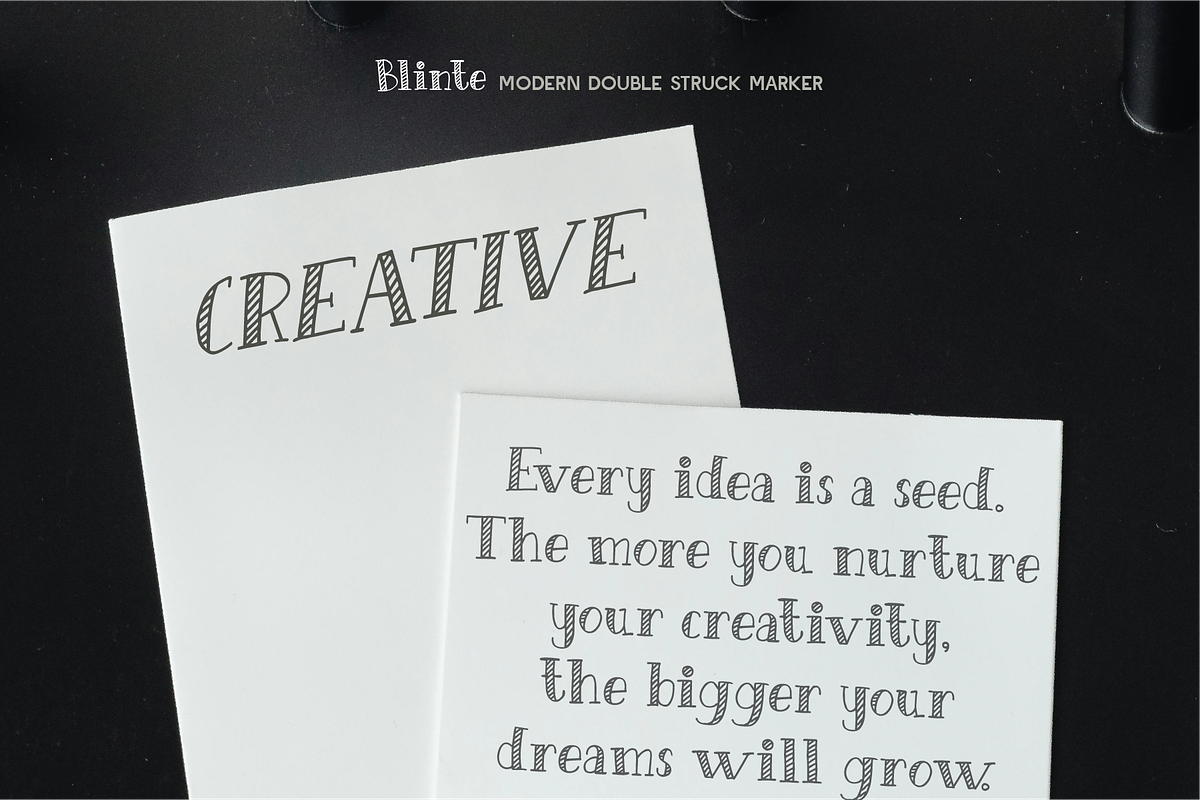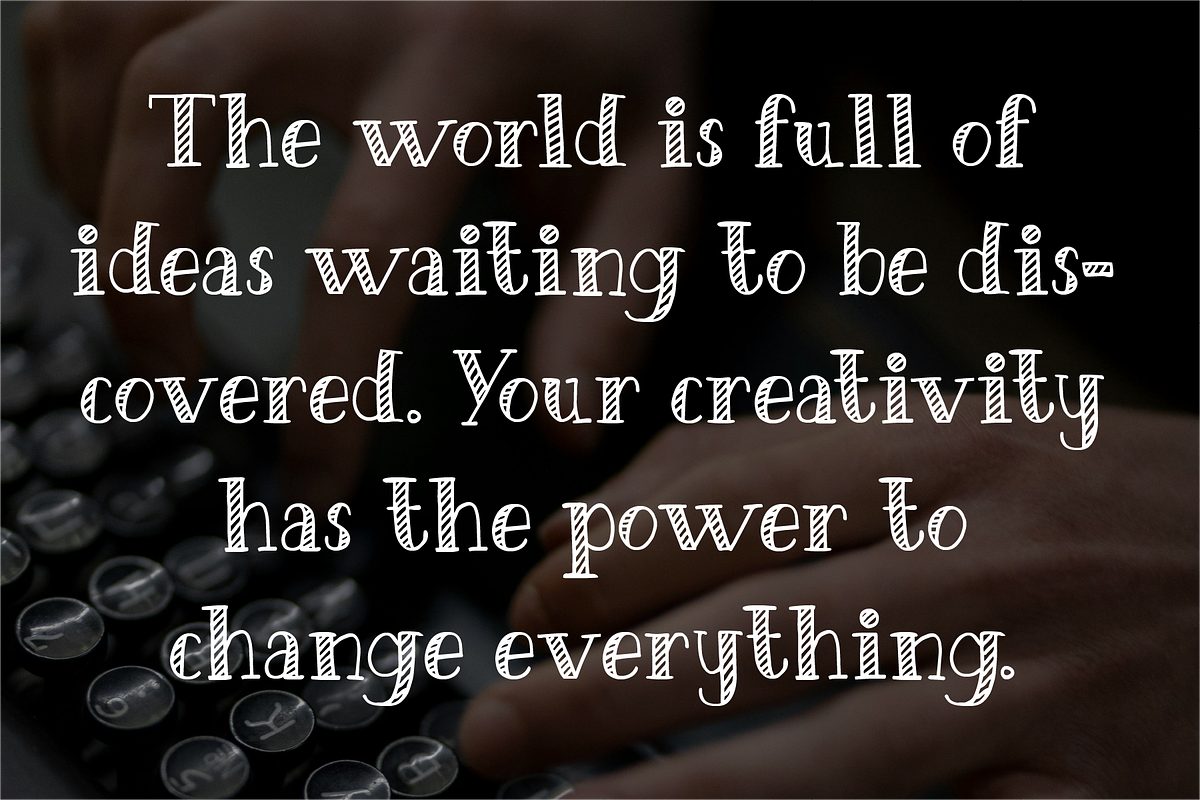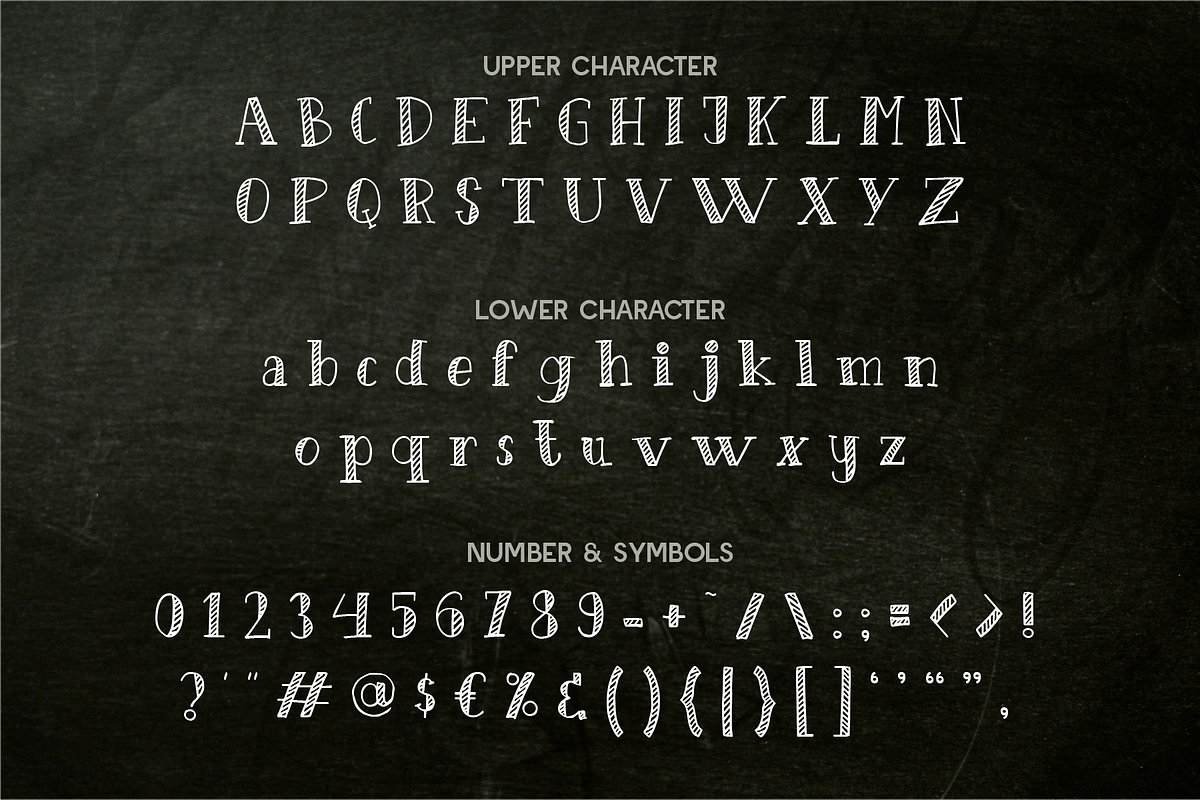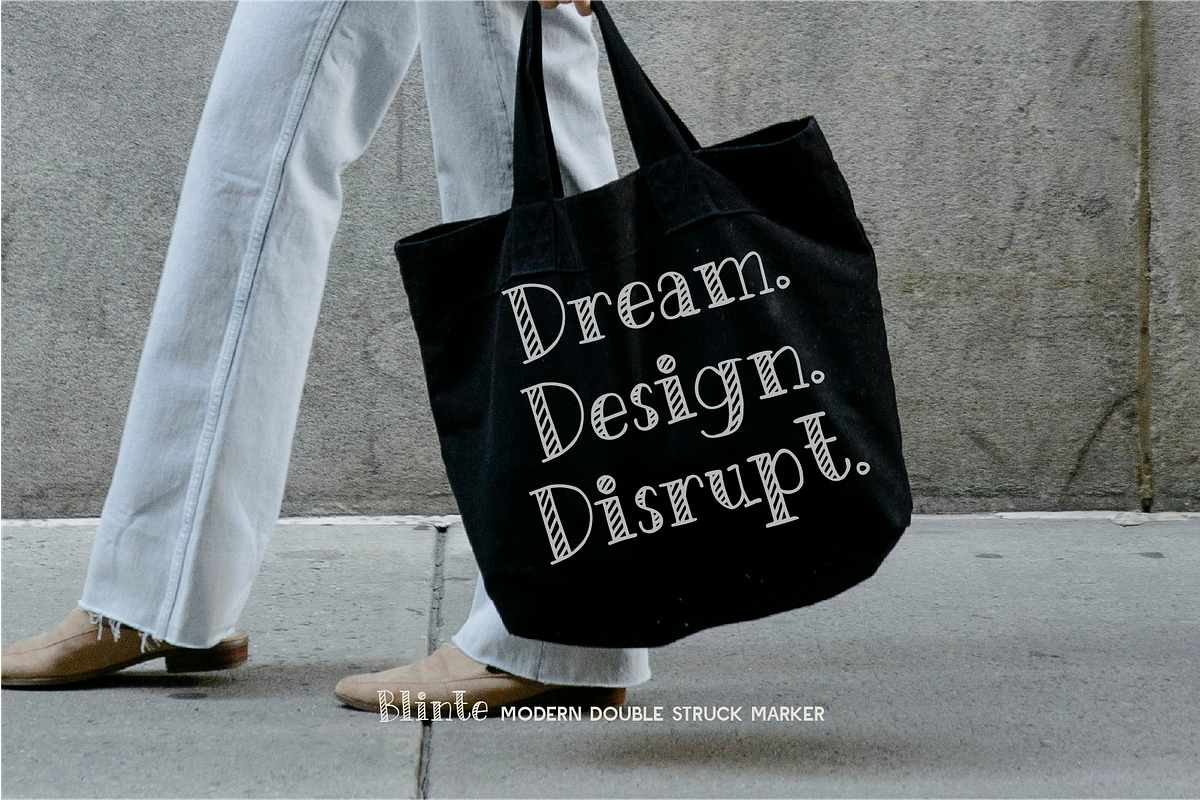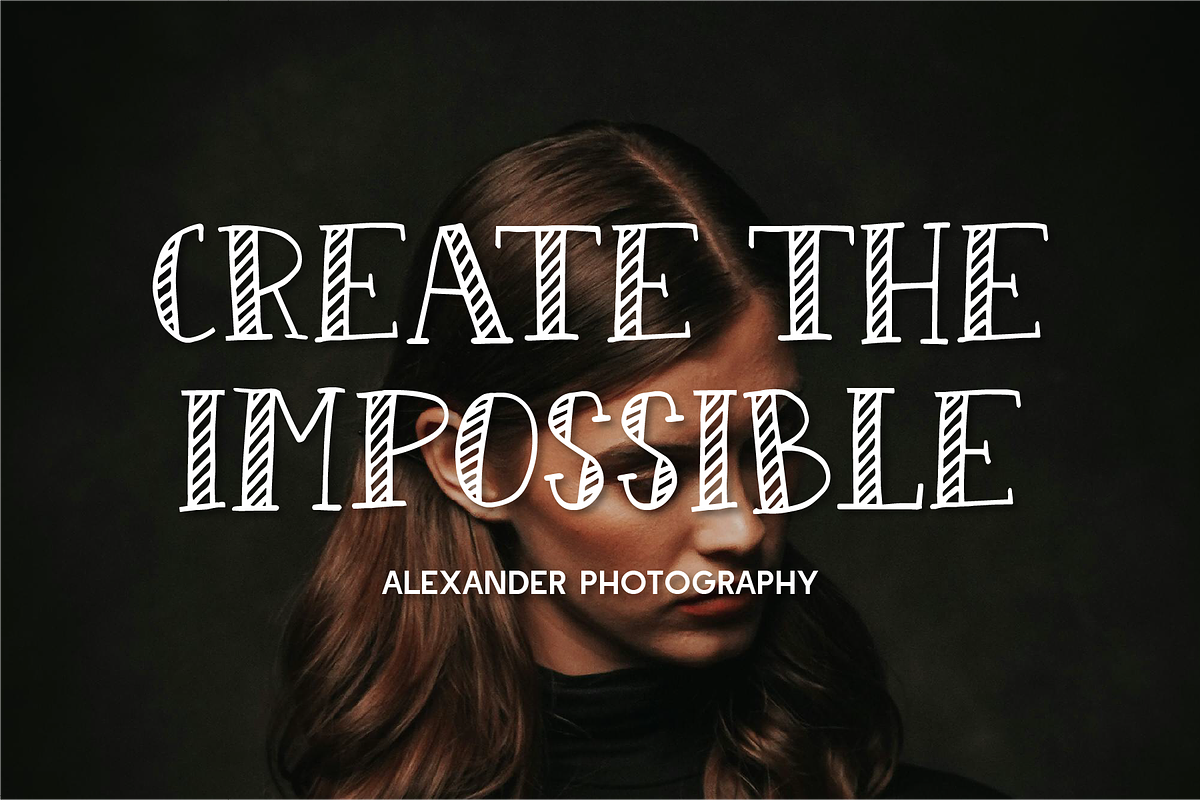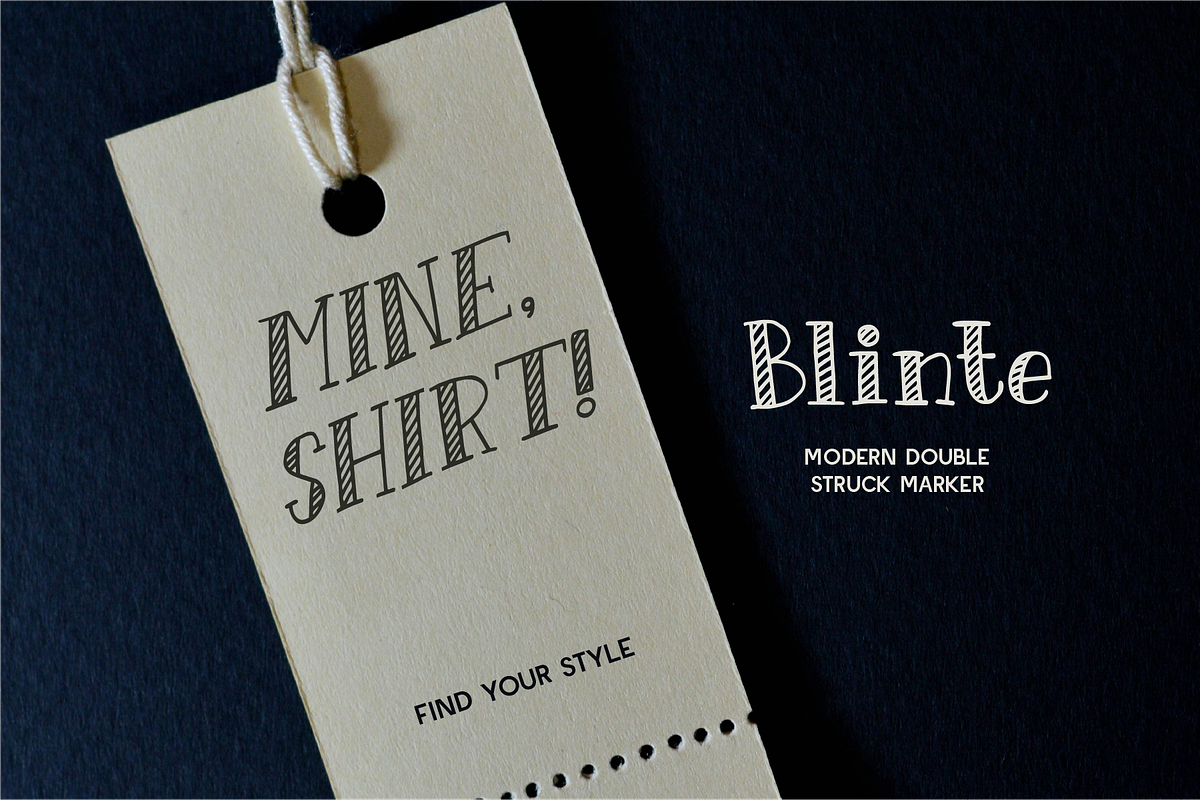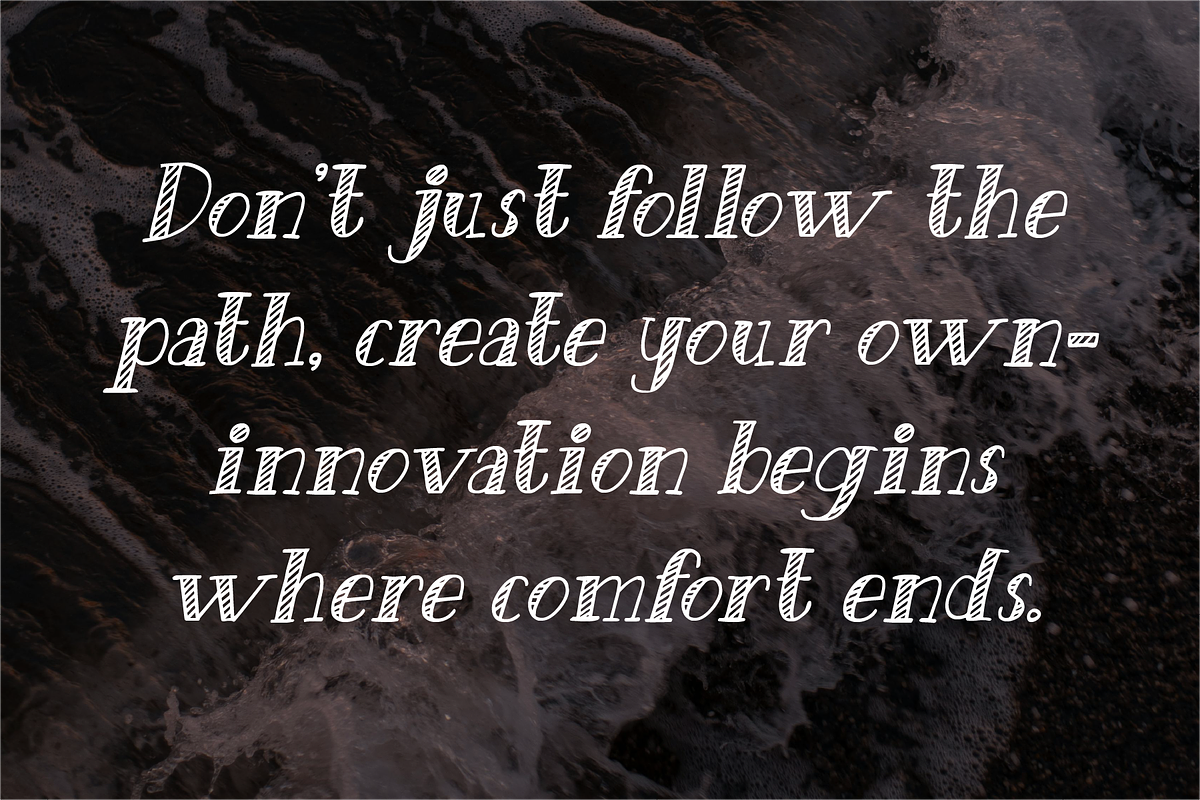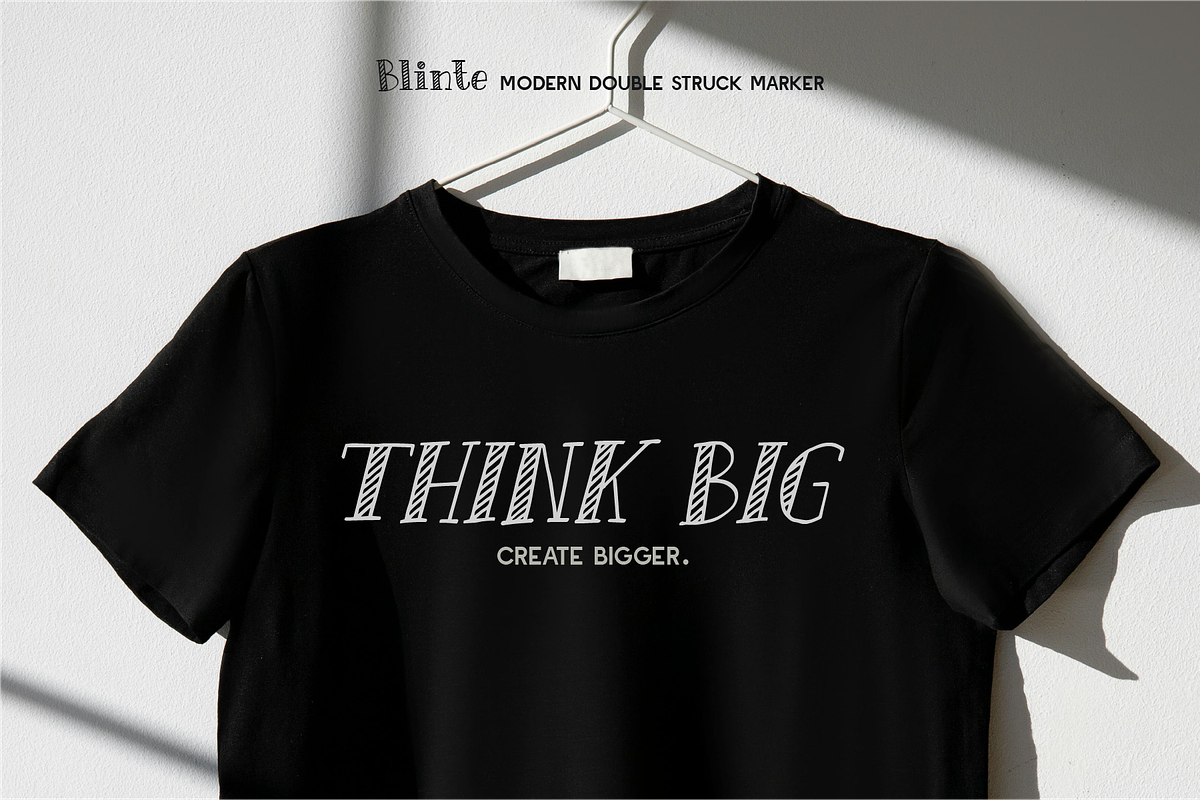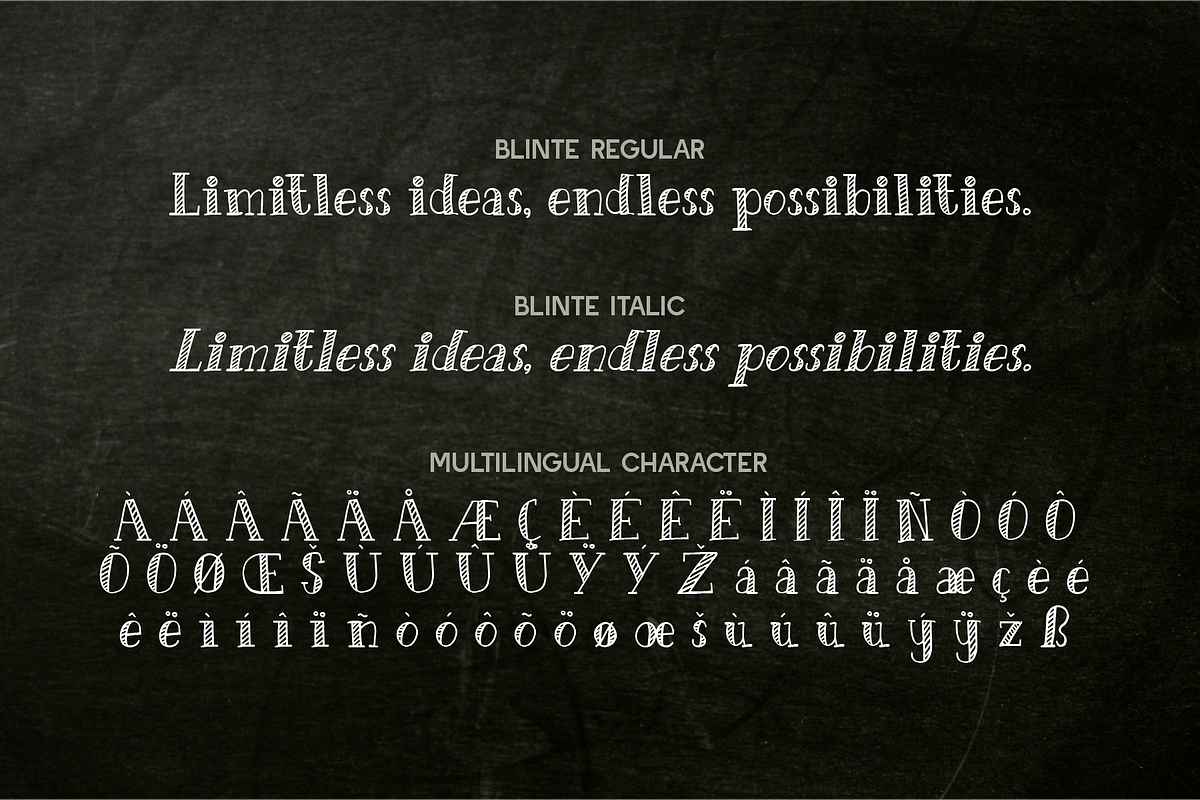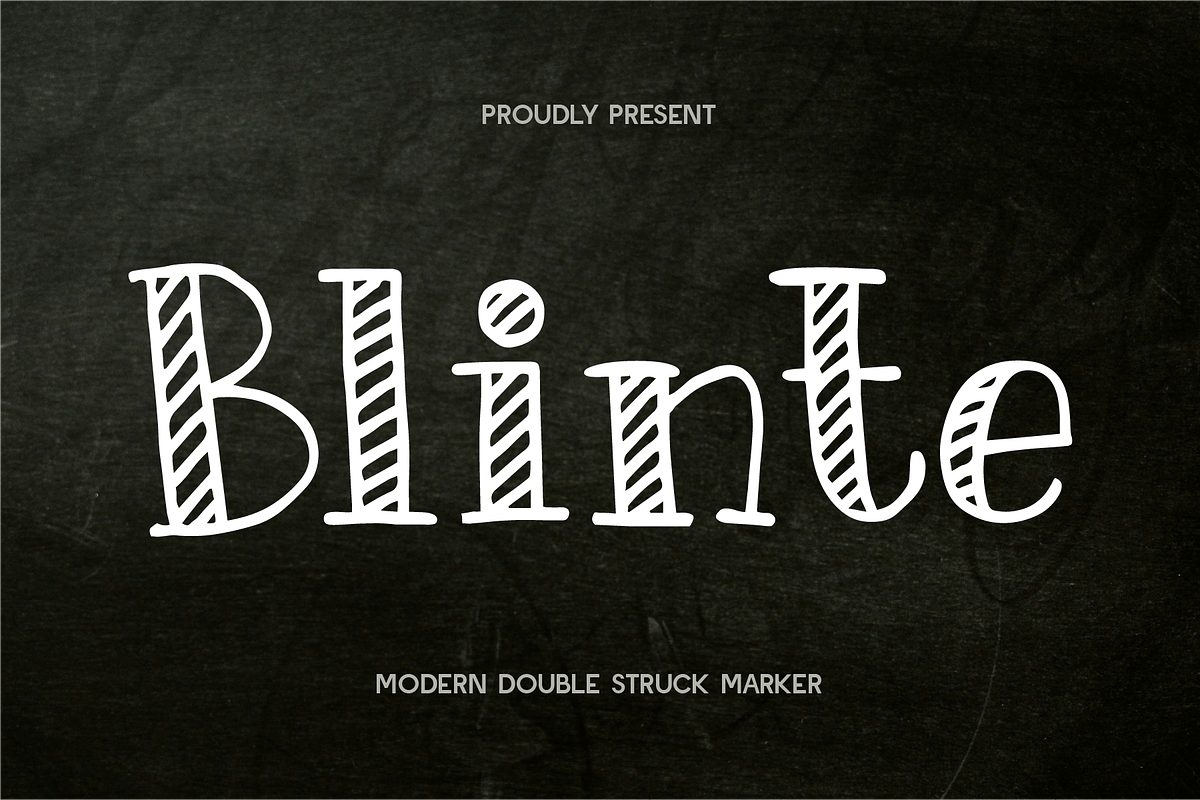
Blinte - Doublestruck Serif
Blinte is a captivating modern double-struck marker font that radiates creativity and charm. Its distinct design features bold, outlined letterforms with diagonal hatch fills, giving it a hand-drawn yet polished appearance. The playful and dynamic style makes it a versatile choice for a wide range of design projects, from educational materials to vibrant posters and bold branding. With its unique blend of casual and structured aesthetics, Blinte is perfect for those looking to infuse their projects with energy and originality. Whether you're creating eye-catching headlines, crafting memorable logos, or adding a touch of whimsy to print designs, Blinte ensures your work stands out. Its modern vibe and artistic flair make it a go-to choice for designers seeking a balance between fun and functionality.
- Standard Character A-Z, a-z, 0-9, Punctuation & symbols
- Regular and Italic